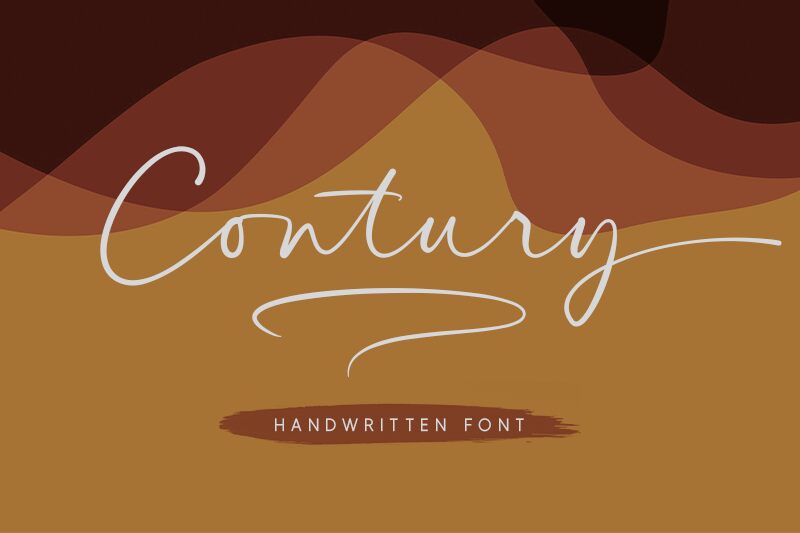
Contury
Contury font by Lemonthe captivates with its elegant handwritten style. Its light weight enhances a delicate and flowing aesthetic, perfect for projects seeking a personal and artisanal touch. The graceful curves and organic forms make Contury an ideal choice for branding, invitations, or any design that benefits from a sophisticated flair.
The font’s approachable yet refined appearance ensures versatility across various creative applications. Designers looking to add warmth and personality will find Contury an excellent option to elevate their work.